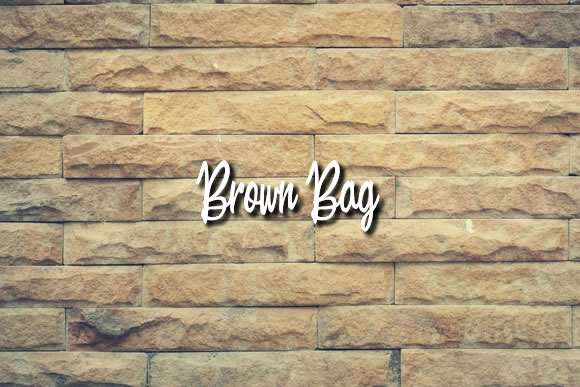
Brown Bag Font
About Brown Bag Font
Brown Bag is a flowing and relaxed theme, featuring a lovely style. No matter the topic, this font will be an incredible asset to your fonts’ library, as it has the potential to elevate any creation.